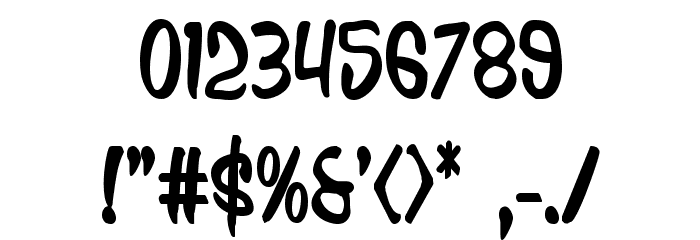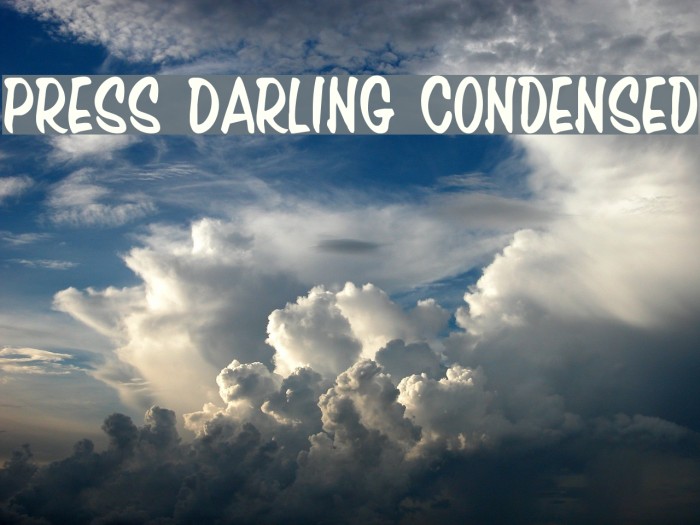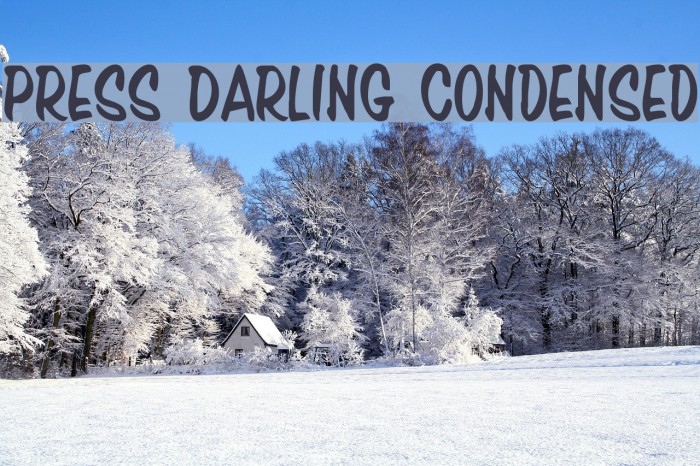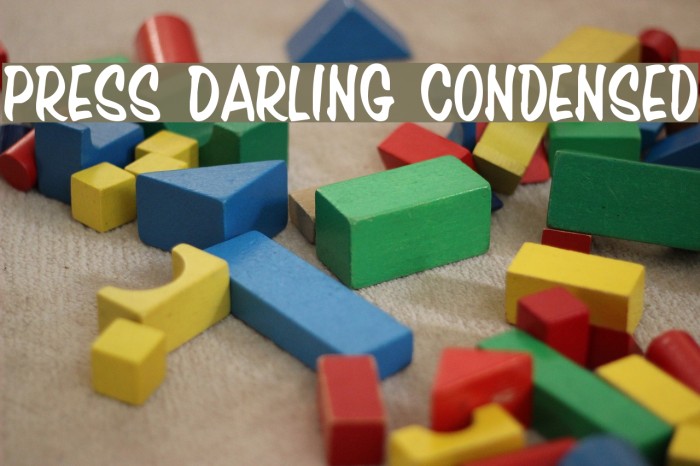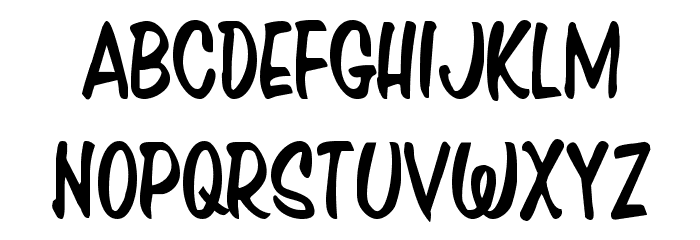
Press Darling Condensed Font
Press Darling Condensed Description
This font features a bold and playful design with a hand-drawn aesthetic. The characters are rounded and slightly condensed, giving a compact appearance while maintaining readability. The strokes are thick and consistent, adding a sense of strength and stability. The uppercase and lowercase letters are well-balanced, with a slight slant that adds a dynamic feel. The numbers and special characters are designed to match the overall style, ensuring uniformity across all elements. This font's unique style makes it suitable for projects that require a touch of creativity and fun.
| Overall Style | Playful, Creative |
| Proposed Projects | Ideal for children's books, playful branding, posters, and creative packaging. |